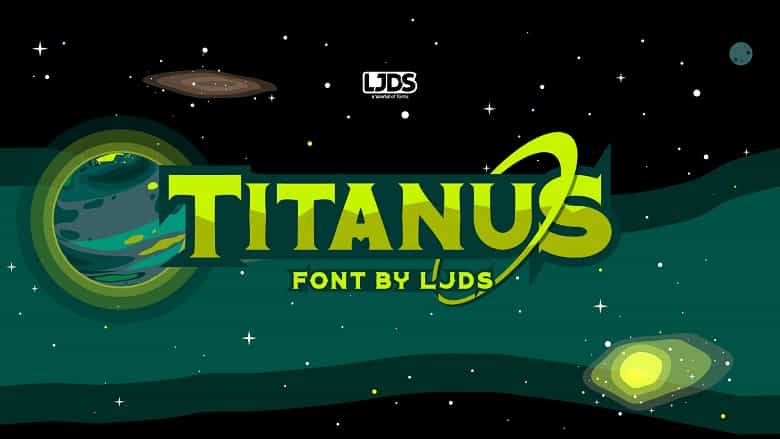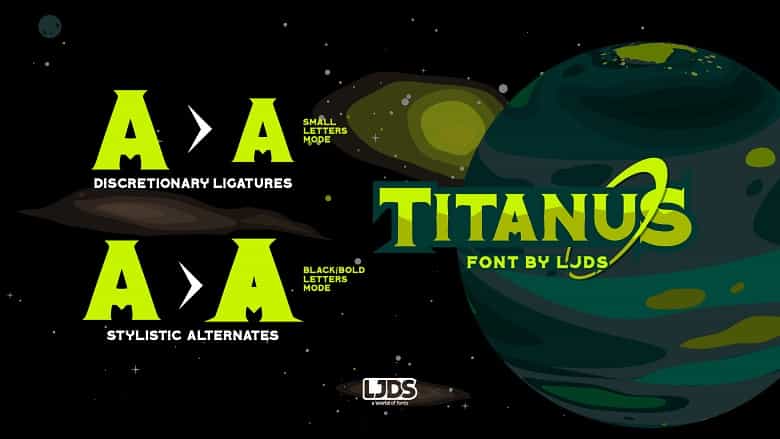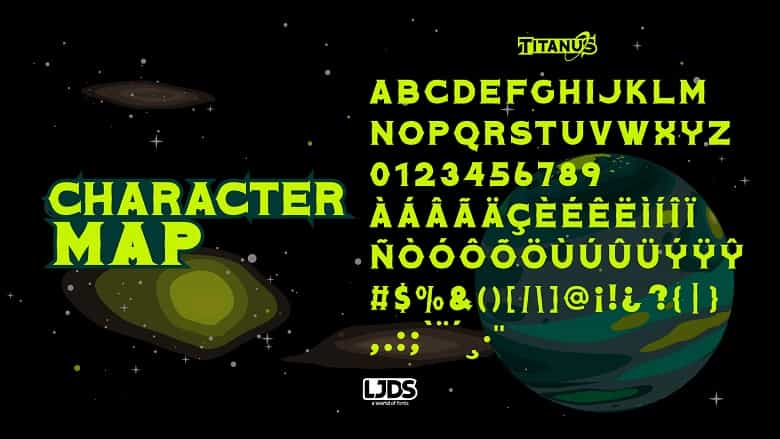
Titanus is a modern serif style font, and the font is based on the 1993 typeface known as Titanus. Perfect for logos, quotes, labels, product, headers, posters, t-shirts, social media and cards.